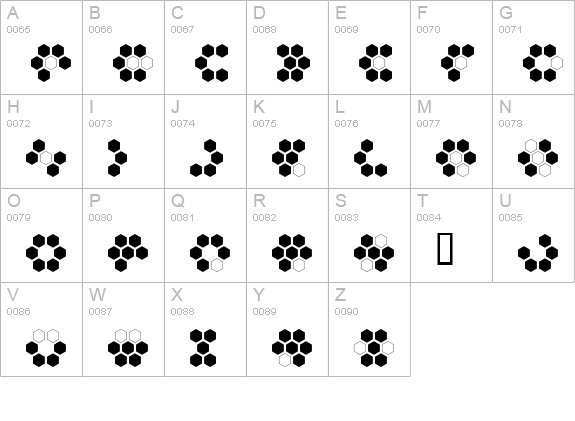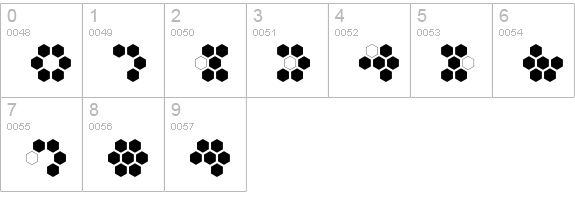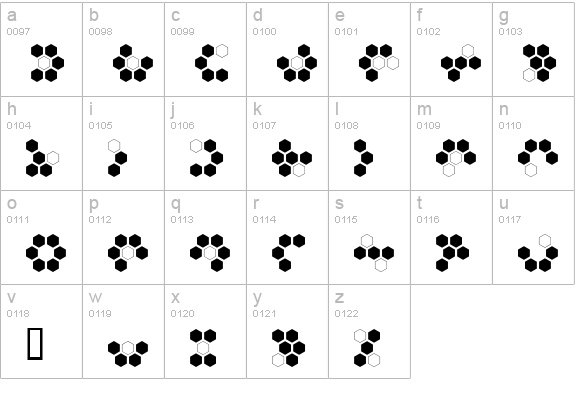
Sixgun Font Details
Introducing Sixgun Font, a stunning display typeface that captures the essence of boldness and craftsmanship. This font is the perfect choice for those seeking to make a statement with their designs, whether it be for logos, headlines, or branding materials. Sixgun Font boasts a unique and captivating style that is sure to catch the eye of any viewer. Its strong and distinctive letterforms are carefully crafted to exude confidence and power, making it an exceptional choice for projects that require a strong visual impact. What sets Sixgun Font apart is not only its striking design, but also the fact that it is freely available to download at FontsMarket.com. This means that designers and creatives alike can easily access this remarkable font without any cost, making it an invaluable resource for any project on a tight budget. With its versatility and ease of use, Sixgun Font can be seamlessly incorporated into a wide range of design projects, from print materials to digital assets. Its clean and precise lines ensure legibility, while its bold presence commands attention, making it an ideal choice for headlines, posters, and signage. Whether you're looking to add a touch of sophistication to your designs or make a bold statement, Sixgun Font is the perfect choice. Download it for free today at FontsMarket.com and unleash your creativity with this exceptional typeface.